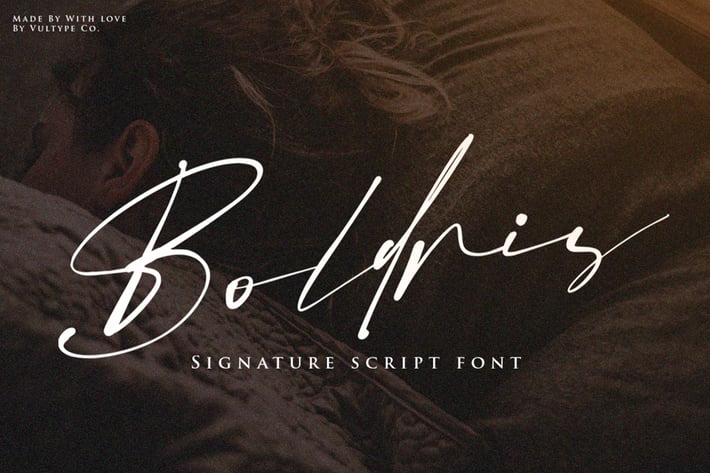
Bolderis Signature Font
Boldris Signature Font is minimalistic script with beautiful ligature and alternate font.
Contemporary handwriting fonts with ligatures and alternative styles ready to add unique look and bloom on your design
It easily cooperating together For Magazine, Movies, or Book Titles. For Photography, Wedding Invitation, Restaurant Menu or T-shirt Design. For Flyers, Banner Ads, web and printing. From Food and Fashion to a Cosmetics product